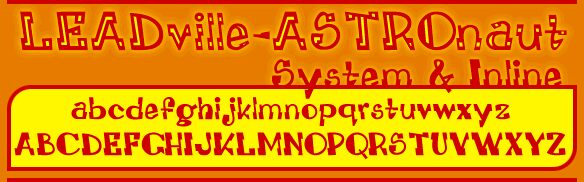
LEADville ASTROnaut Inline by Matt Chisholm is a free inline display font built from angular, uneven block letters. Its heavy outer shapes are cut by narrow interior lines and sharp geometric breaks. The lettering has a deliberately offbeat stance.
Merchandise gives this font a natural home because its outlined forms can function like small graphic emblems on shirts, stickers, and album covers. In posters and game graphics, the repeated slashes, notches, and inset strokes can echo angular illustration, mechanical props, or science fiction scenery.